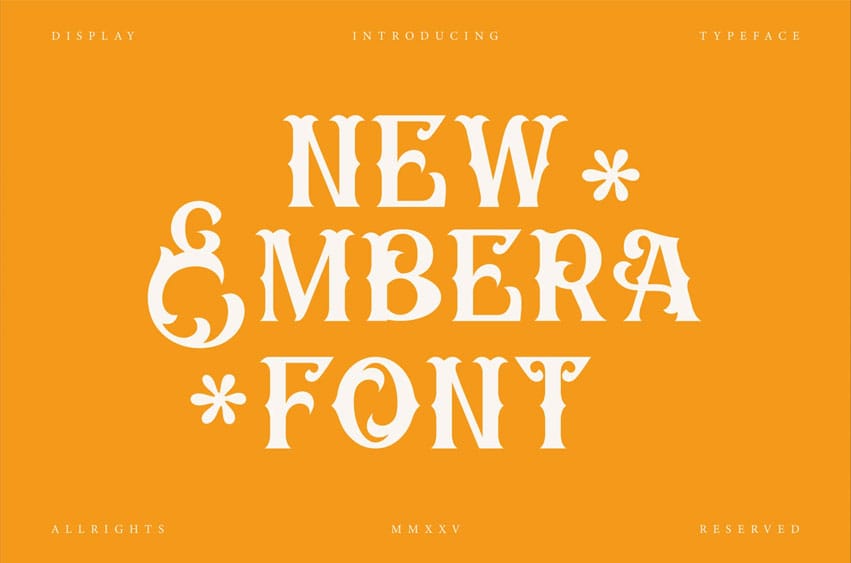
Embera Font is a contemporary decorative typeface that combines modern artistry with refined elegance. Its name suggests both strength and sophistication, a perfect reflection of its sculpted letterforms, graceful serifs, and balanced ornamental rhythm.
Designed for luxury branding, fashion editorials, and creative packaging, Embera adds a confident, distinctive character to any visual composition.